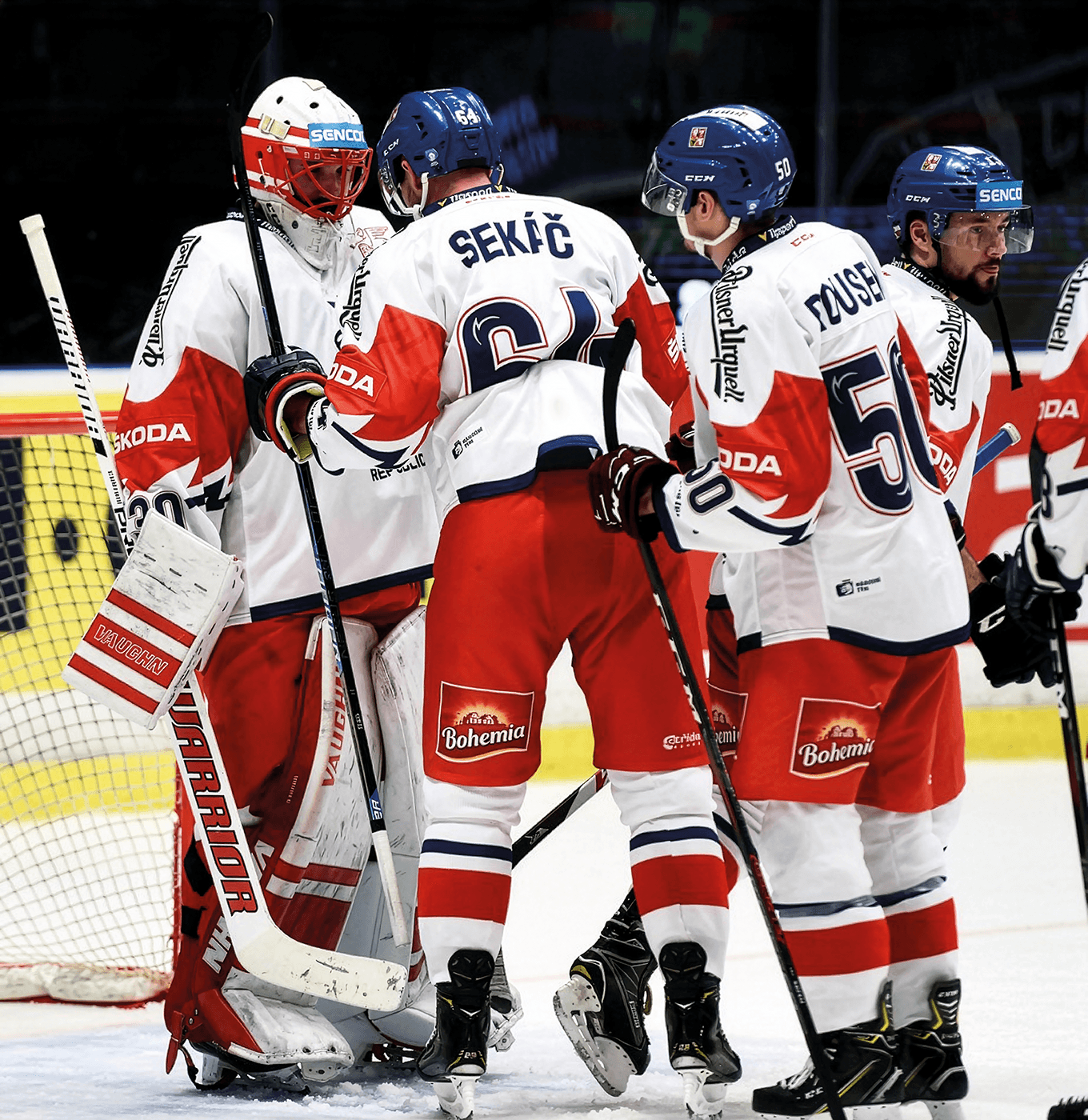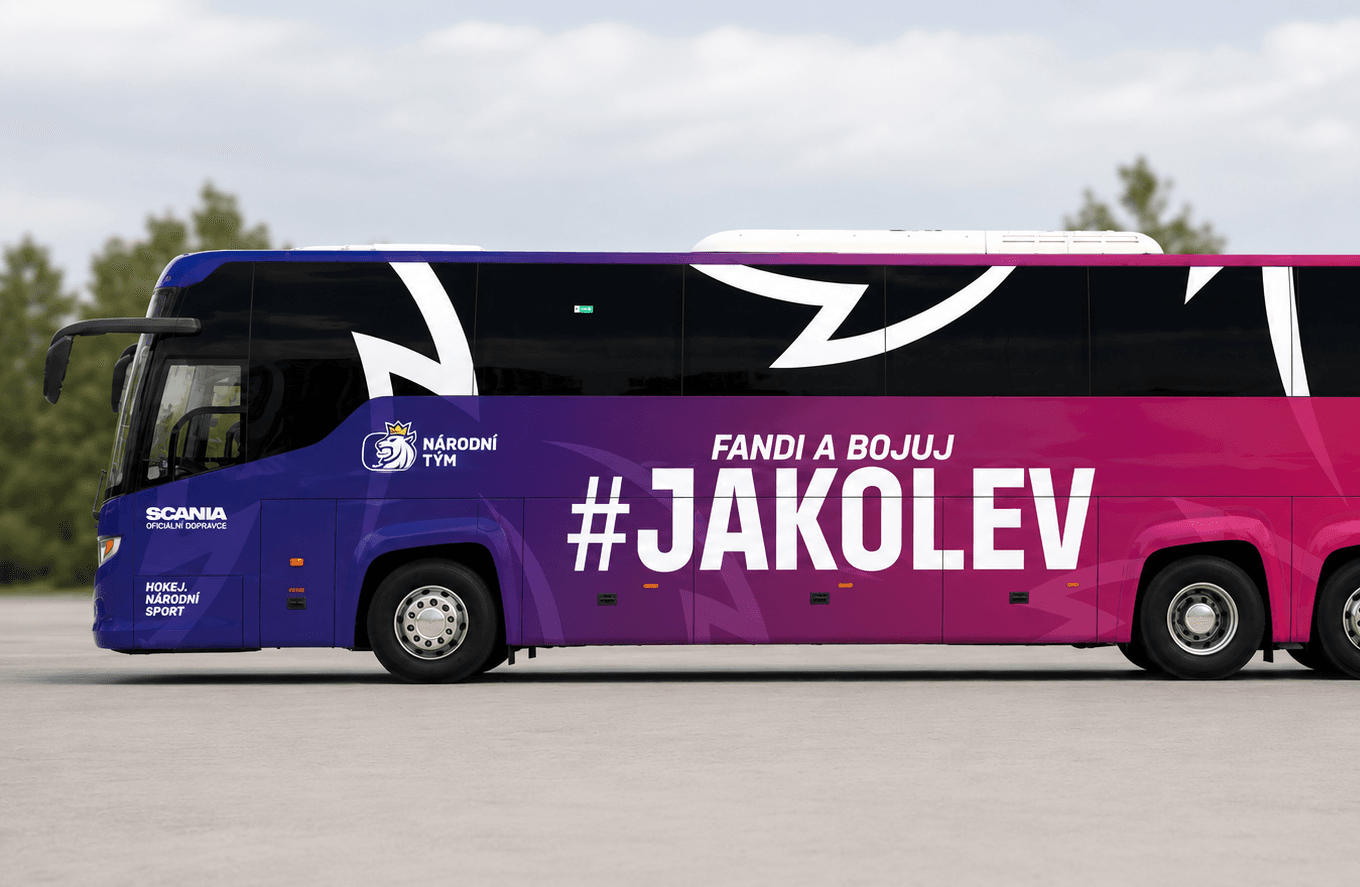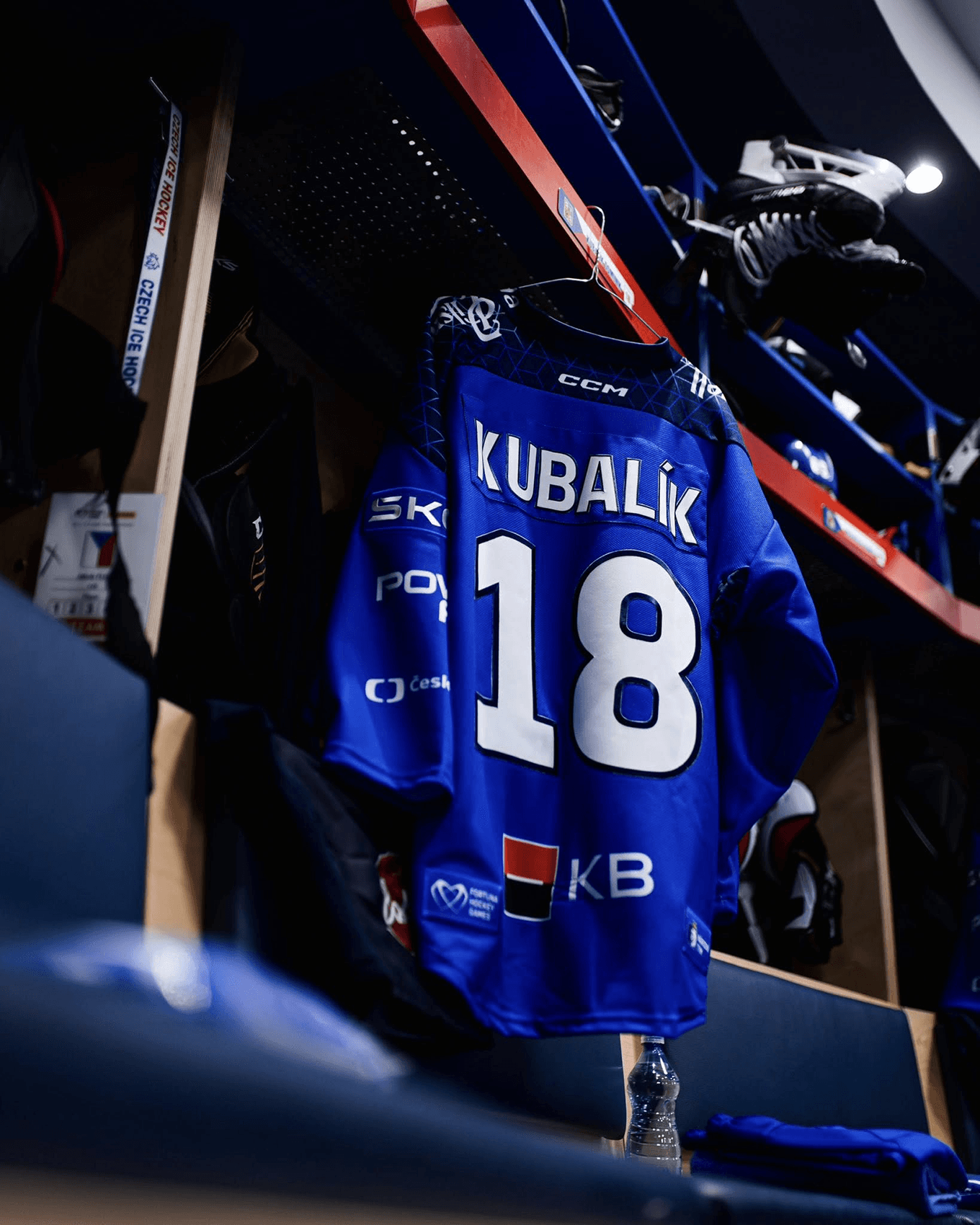
Hokejista
Client: Czech Ice Hockey Association
For the Czech Ice Hockey Association, a two-style uppercase type family Hokejista was developed as a modification of the Nudista typeface. The process began with defining the optimal weight, followed by a meticulous redrawing of all characters and targeted refinements of selected distinctive glyphs. The condensed variant was designed primarily for use on team jerseys.